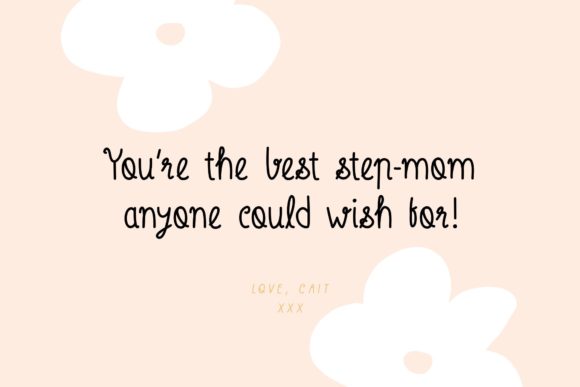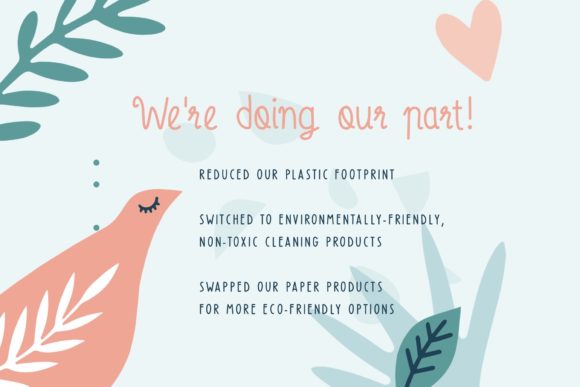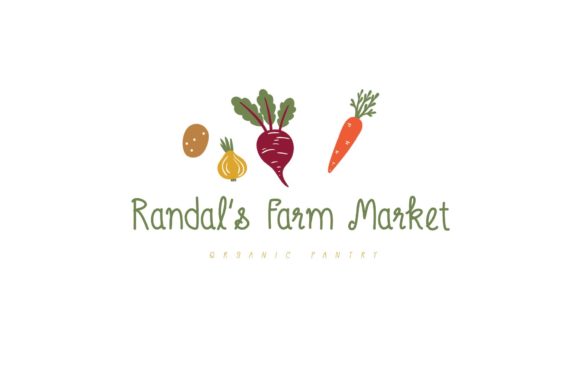
Introduction to Senerity Font
Senerity is a flowing handwritten font, described by an elegant touch, perfect for your favorite projects.
Key Features of Senerity Font
Why Choose Senerity Font?